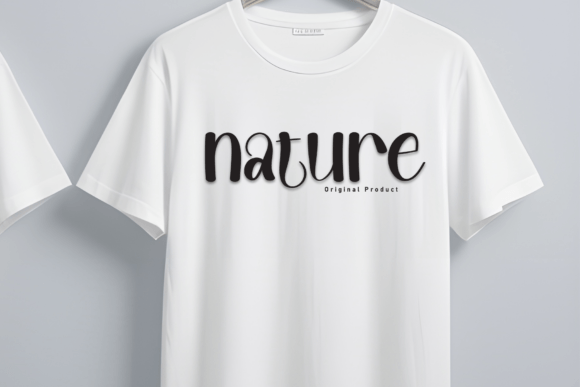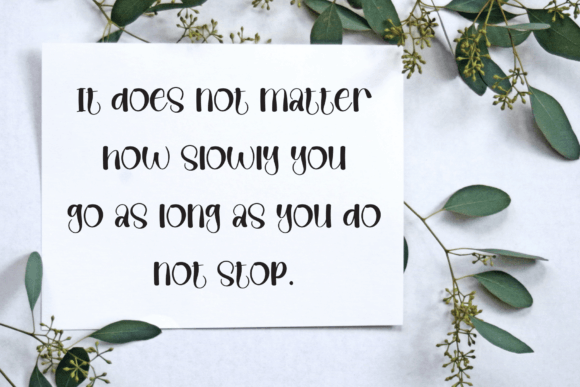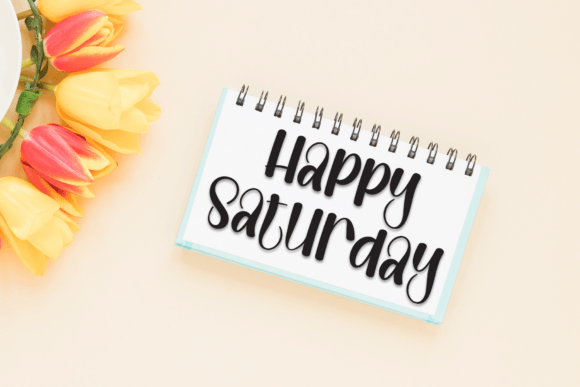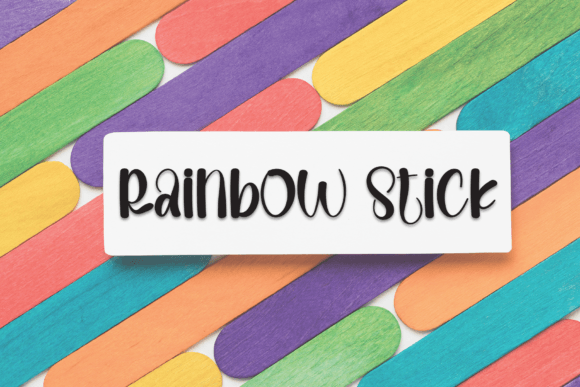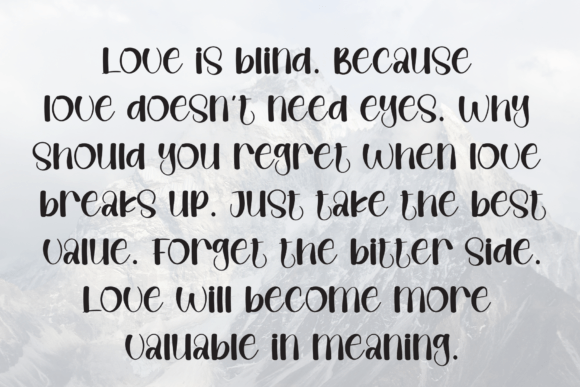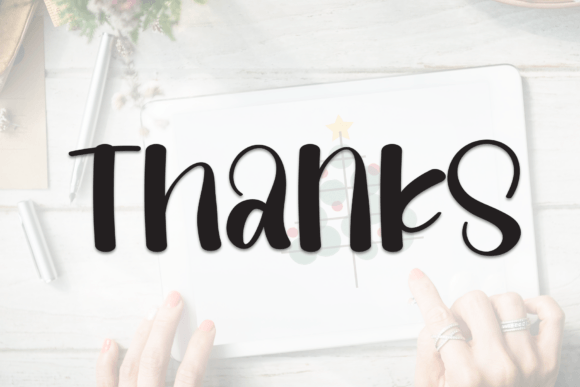
Spread Holiday Cheer with the Perfect Font
As the holiday season approaches, designers are on the lookout for the perfect font to capture the magic of Christmas. Have you ever found yourself sitting in front of a blank design screen, staring blankly at your computer, trying to conjure up the perfect idea? I know I have.
| 📌 Product Name | Christmas Wishes Font |
That’s where Christmas Wishes Font comes in – a sweet and friendly handwritten font that’s sure to bring a smile to your face. This unique font is perfect for adding a personal touch to your holiday designs, from cards and posters to social media graphics and more.
With its natural and playful style, the Christmas Wishes Font is a valuable asset for designers looking to add some festive flair to their projects. Its versatility makes it a great choice for a wide range of designs, limited only by your imagination!
Christmas Wishes Font Key Features
- Font Style: A festive and elegant script font, perfect for holiday greetings and Christmas-themed designs.
- Unique Characteristics: The font features intricate, hand-drawn details and ornaments, adding a touch of whimsy and elegance to any design.
Designer Review: Christmas Wishes Font
Overall, I’d say the Christmas Wishes Font is a cute and playful addition to any holiday project. It’s perfect for creating a cheerful atmosphere and adding a touch of whimsy to your designs.
What Works Well: ✨
- Unique and creative font style that captures the essence of the holiday season
- Wide range of characters and punctuation marks, making it versatile for various design applications
- Easy to read, even at smaller font sizes, which is essential for holiday cards and gift tags
- Perfect for creating a cohesive and festive brand identity
- Limited language support, which might be a concern for international projects
- No bold or italic versions available, which can limit its use in more formal designs
- The font’s creative style might not be to everyone’s taste, and some users may find it too kitschy or childish
Overall, I’d give the Christmas Wishes Font 4 out of 5 stars. While it has some limitations, its unique style and versatility make it a great choice for holiday designs. Just be mindful of the limitations when using it in your projects.
Use the Christmas Wishes Font for creating festive holiday cards, invitations, and gift tags.
Experiment with different font sizes and styles to add emphasis and visual interest to your designs.
Combine the Christmas Wishes Font with other festive graphics and elements to create a cohesive holiday look.